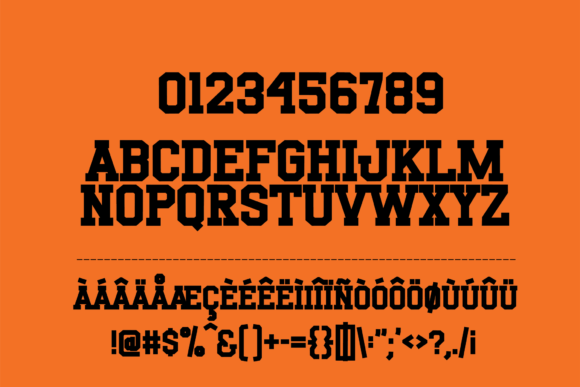
Athletics Font: Elevate Your Sports Logos and Designs with a Powerful Serif Typeface
When it comes to creating bold and striking designs, particularly in the realm of sports logos, the right typography can make all the difference. Introducing Athletics Font, a robust and dynamic serif typeface specifically crafted for sports logos and bold designs. This powerful font is designed to bring a strong visual presence to any project, adding a modern touch that is sure to make a statement.
The Power of Athletics Font
Athletics Font boasts strong, striking strokes that exude confidence and energy. Its serif design adds a touch of sophistication and elegance, making it perfect for a wide range of applications, from sports teams and events to fitness brands and athletic wear. Whether you’re an athlete looking to create a bold logo or a designer seeking to elevate your client’s brand, Athletics Font is the perfect choice.
Key Features of Athletics Font
- Robust and Dynamic Design: Athletics Font features a sturdy and dynamic design that is perfect for creating bold and striking logos.
- Serif Typeface: The serif design adds a touch of sophistication and elegance, making it suitable for a wide range of applications.
- Strong Visual Presence: The font’s strong strokes bring a powerful visual presence, making it perfect for sports logos and bold designs.
- Modern Touch: Athletics Font adds a modern touch to any project, ensuring that your designs stay fresh and up-to-date.
Why Choose Athletics Font?
There are many fonts available that claim to be suitable for sports logos and bold designs, but Athletics Font stands out from the rest. Here are just a few reasons why:
- Uniqueness: Athletics Font offers a unique and distinctive design that sets it apart from other fonts.
- Versatility: The font is versatile and can be used for a wide range of applications, from sports teams and events to fitness brands and athletic wear.
- High-Quality Design: The font is designed to high standards, ensuring that it looks great in any context.
- Pair it with Other Fonts: Athletics Font can be paired with other fonts to create a unique and striking design.
- Experiment with Colors: The font looks great in a range of colors, so don’t be afraid to experiment and find the perfect combination for your design.
- Use it for Headings: Athletics Font is perfect for headings and titles, where its strong strokes and bold design can really make an impact.
In conclusion, Athletics Font is a powerful and dynamic serif typeface that is perfect for sports logos and bold designs. Its strong, striking strokes bring a powerful visual presence, adding a modern touch to any project. Whether you’re an athlete or a designer, Athletics Font is sure to make a statement and elevate your work. With its unique design, versatility, and ease of use, Athletics Font is a must-have for any designer or craftsperson looking to create bold and striking designs.